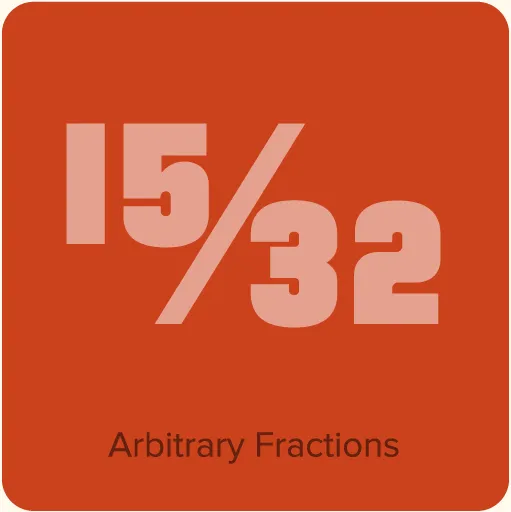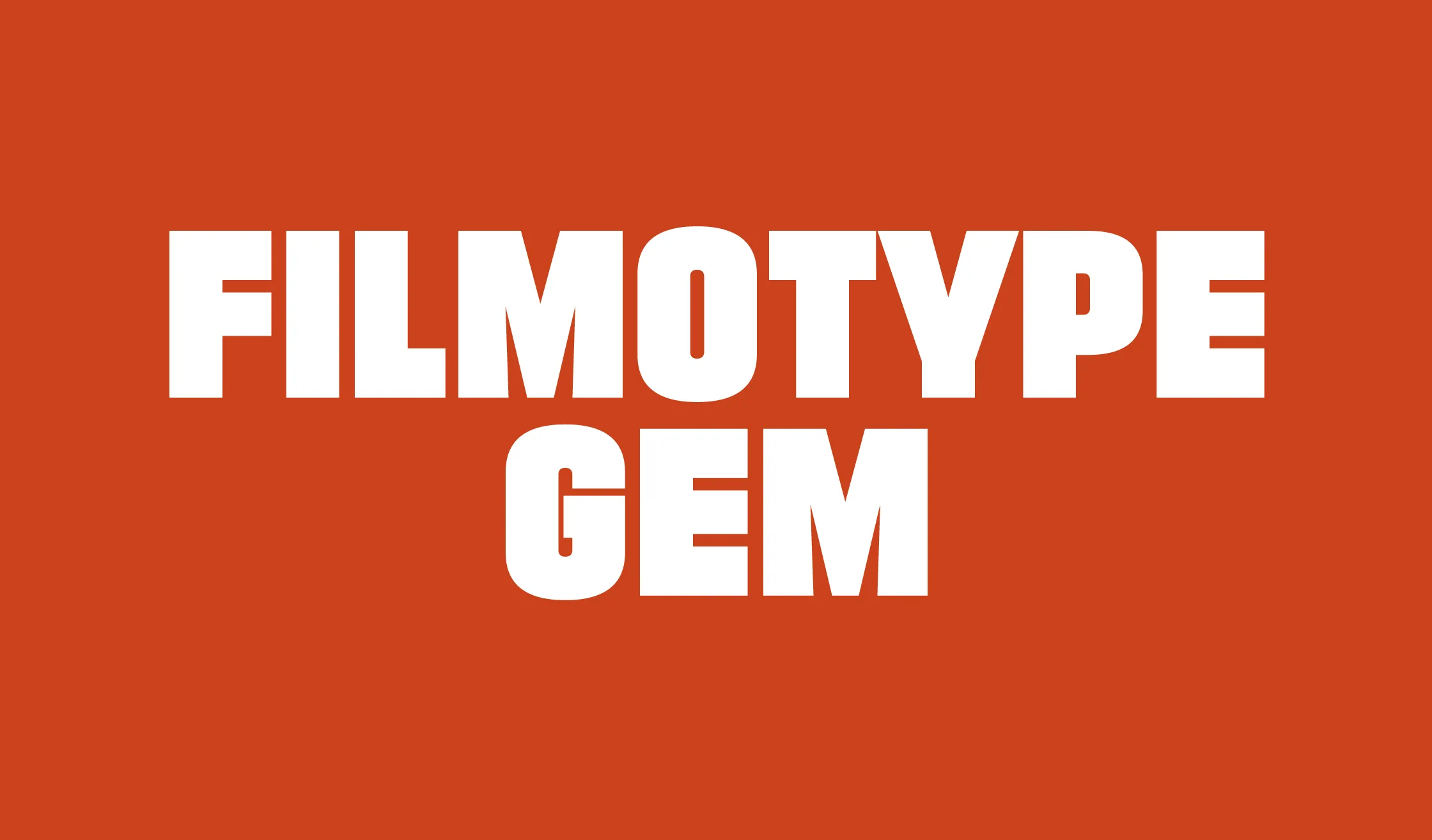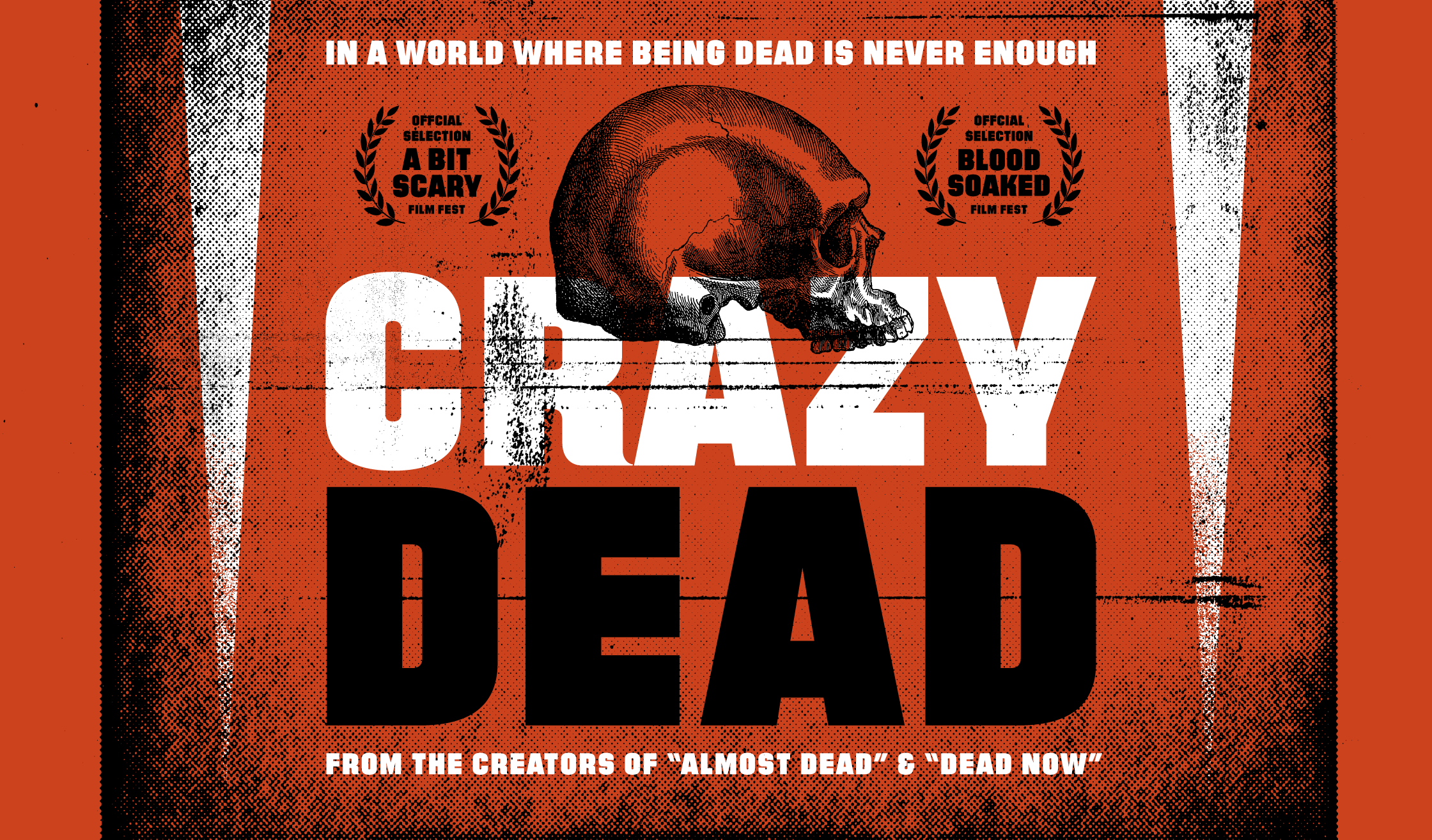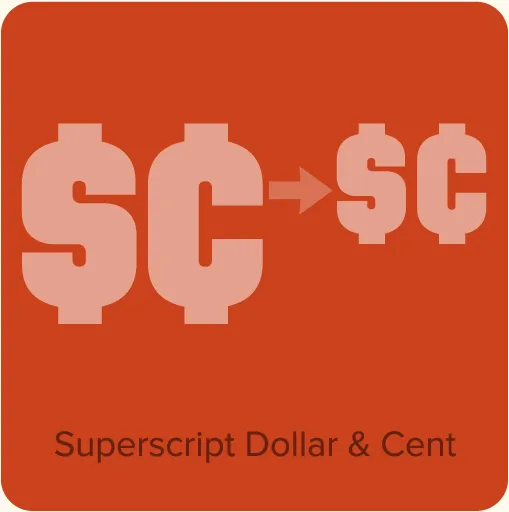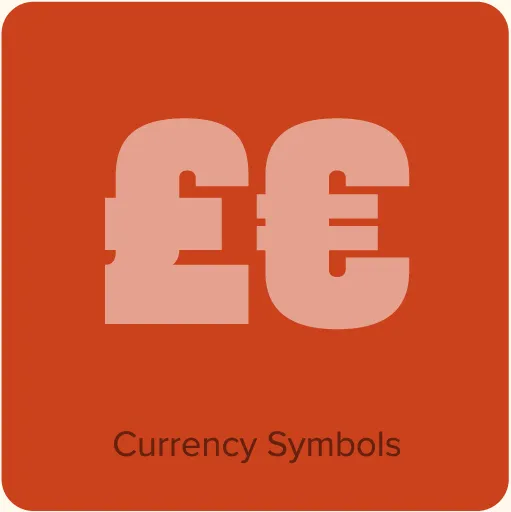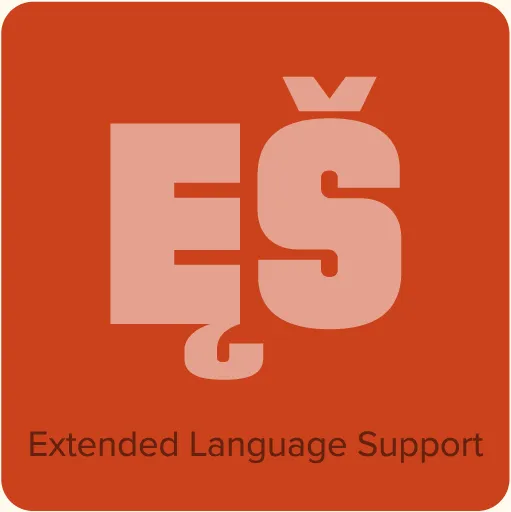
Filmotype Gem (2011, for Filmotype) was originally designed and released in the 1950s. It is an “all caps” design. Filmotype Gem is part of a range of compact sans serif fonts whose names begin with the letter “G” (a Filmotype convention) that have much in common with Futura—the one-story a, the round dots, the simplified t and u. If there were such a thing as Futura Compressed, it would look a lot like this. Gem has its own unique characteristics, such as the prominent whiplash spine on the S and its subtle hand-lettered feel.